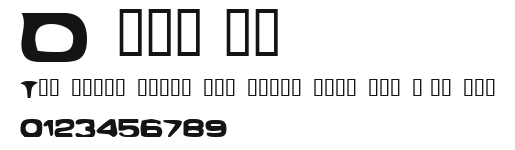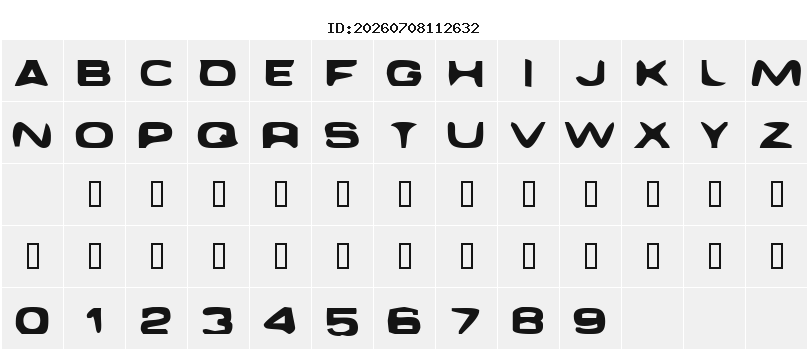
Daggmask Preview
• Font Name: Daggmask
About Daggmask.ttf
Daggmask.ttf is a modern, elegant sans-serif font designed for ultimate readability and visual harmony. Perfect for branding, headlines, web design, and print materials.